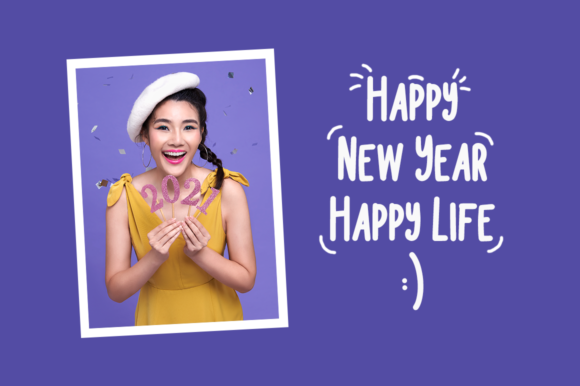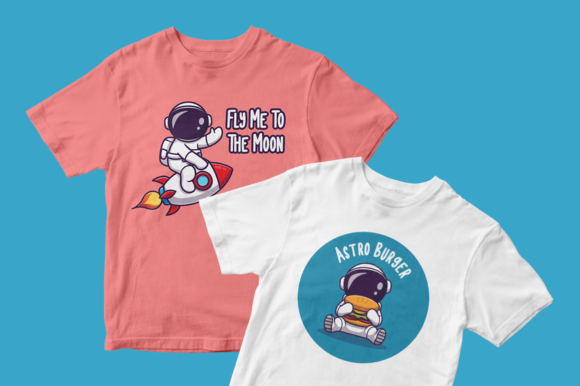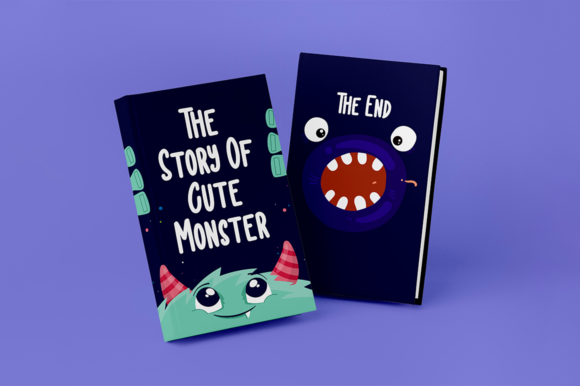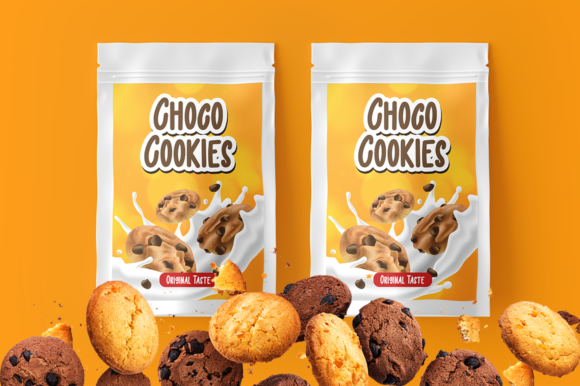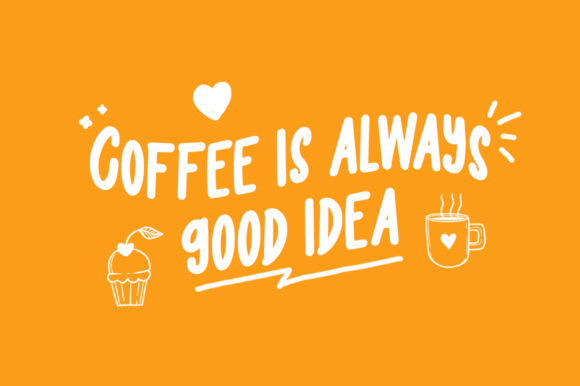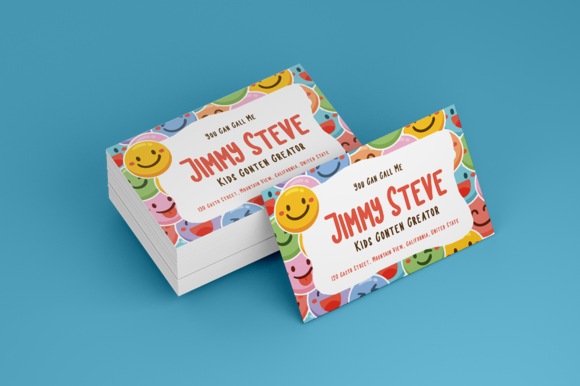
Introducing Happy Smile Font: The Perfect Blend of Elegance and Whimsy
Are you on the hunt for a font that exudes elegance, sophistication, and a dash of playfulness? Look no further than Happy Smile Font, a magical display font that is sure to capture your heart. With its authentic feel and versatile design, Happy Smile is the perfect choice for designers and crafters looking to add a touch of magic to their projects.
A Font that Falls into the “Love at First Sight” Category
Happy Smile Font is carefully crafted with a touch of elegance, making it an ideal choice for a variety of design projects. Whether you’re creating wedding invitations, stationery art, social media posts, or greeting cards, this font is sure to make your designs stand out from the crowd. Its unique blend of sophistication and playfulness makes it a versatile font that can be used in a multitude of creative ways.
What Makes Happy Smile Font So Special?
- Elegant Design: Happy Smile Font boasts an elegant design that is perfect for creating sophisticated and stylish designs.
- Authentic Feel: The font has an authentic feel that makes it perfect for creating designs that require a personal touch.
- Versatile: Happy Smile Font is a versatile font that can be used in a variety of design projects, from wedding invitations to social media posts.
Happy Smile Font is a dream come true for designers and crafters who are looking for a font that can help them create stunning designs. Whether you’re a professional designer or a DIY crafter, this font is sure to inspire your creativity and help you create designs that are truly unique.
Ideas for Using Happy Smile Font
So, how can you use Happy Smile Font in your designs? Here are a few ideas to get you started:
- Wedding Invitations: Create beautiful and elegant wedding invitations that will set the tone for the big day.
- Stationery Art: Use Happy Smile Font to create stunning stationery art that will make your designs stand out.
- Social Media Posts: Add a touch of elegance and whimsy to your social media posts with Happy Smile Font.
- Greeting Cards: Create cute and playful greeting cards that will make your loved ones smile.
Tips for Getting the Most Out of Happy Smile Font
Here are a few tips for getting the most out of Happy Smile Font:
- Experiment with Different Sizes: Don’t be afraid to experiment with different font sizes to create visual interest.
- Pair it with Other Fonts: Pair Happy Smile Font with other fonts to create a unique and stylish design.
- Use it in Combination with Images: Use Happy Smile Font in combination with images to create stunning designs.
In conclusion, Happy Smile Font is a magical display font that is sure to capture your heart. With its elegant design, authentic feel, and versatile nature, it’s the perfect choice for designers and crafters looking to add a touch of magic to their projects. So why wait? Fall in love with Happy Smile Font and start creating stunning designs today!